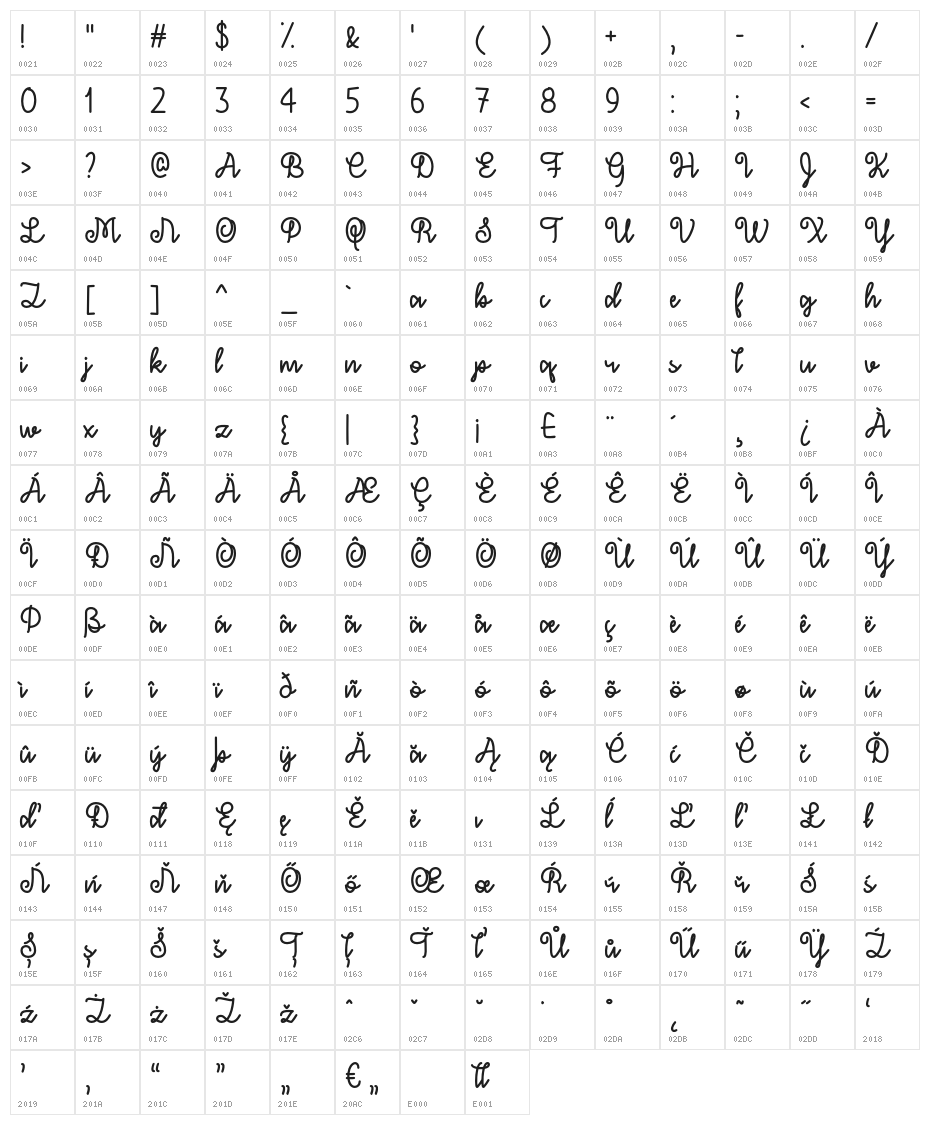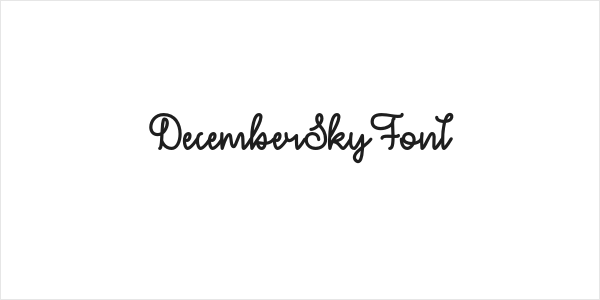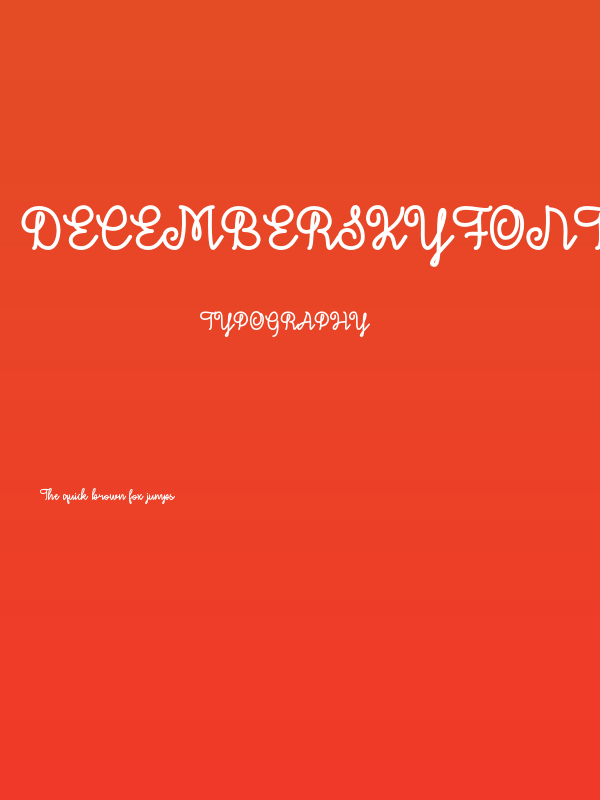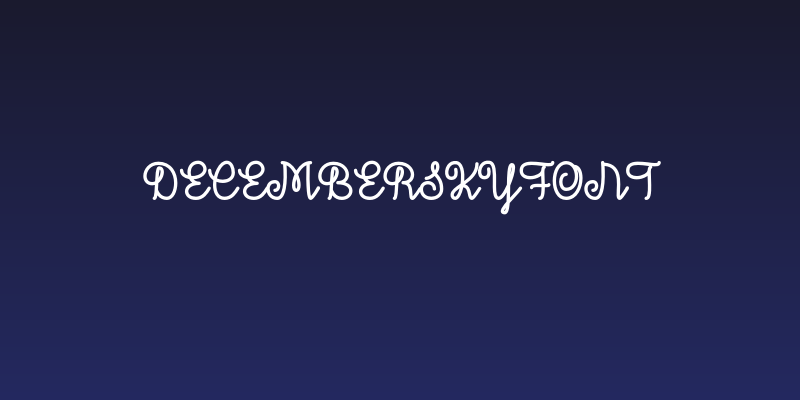
DecemberSkyFont Font
DecemberSkyFont Description
This font features a playful and whimsical script style with a handwritten appearance. The uppercase letters are characterized by their flowing, interconnected strokes, giving a sense of movement and fluidity. The lowercase letters maintain a consistent style, with rounded edges and smooth curves that enhance the font's approachable and friendly look. The numerals are clear and legible, with a slight slant that complements the overall design. Special characters are included, maintaining the same playful aesthetic, making this font versatile for various creative applications.
| Overall Style | Playful, Whimsical |
| Use Case | Logos, Invitations, Greeting Cards |
| Proposed Projects | Ideal for greeting cards, invitations, personal branding, and playful logos. |